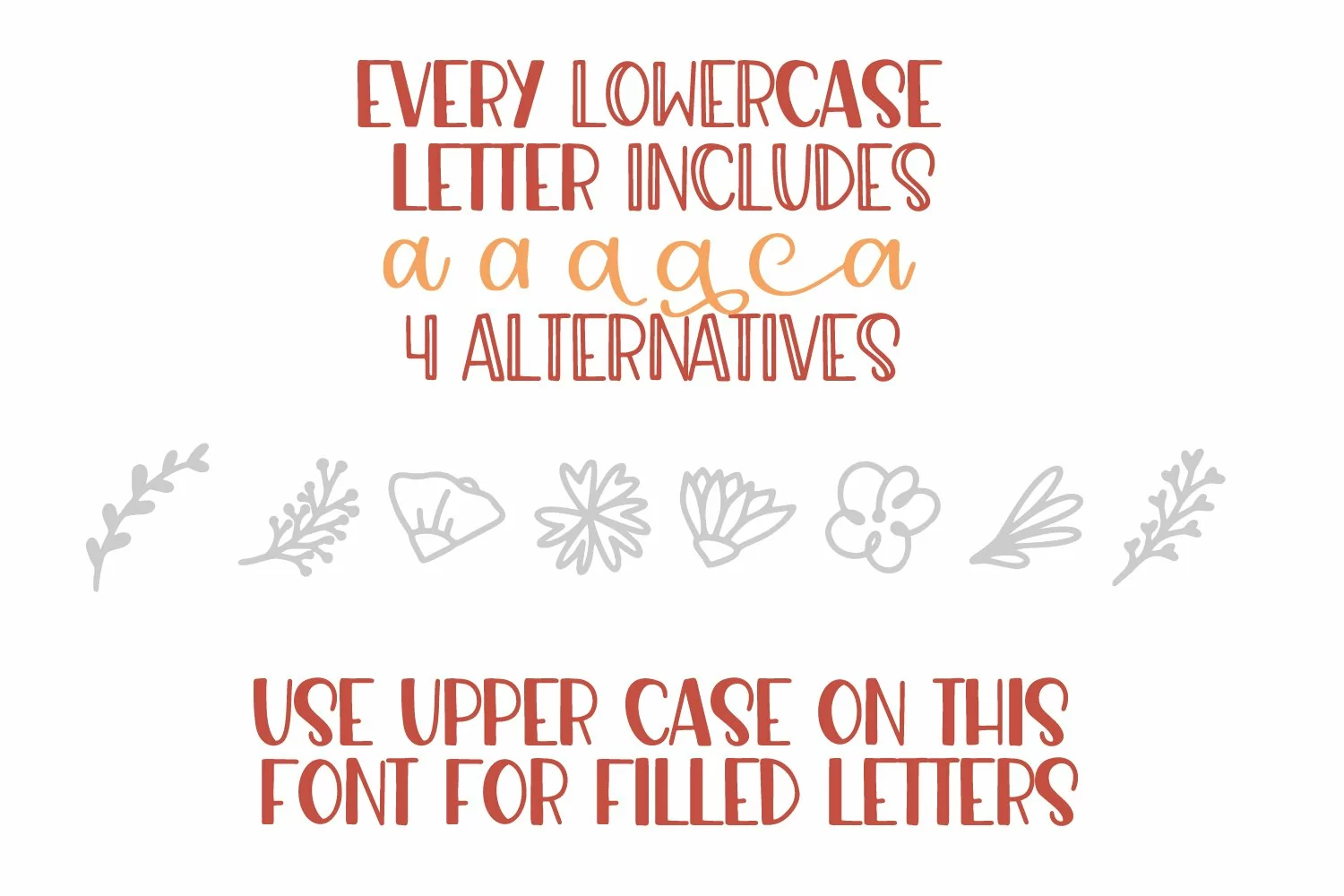
Jessamine - A Script, Print & Doodle Trio
one script, each lower case letter with 4 alternatives
One sans serif display font with both an inline version and a filled version (letters only of the filled)
& a doodle font with over 50 floral doodles